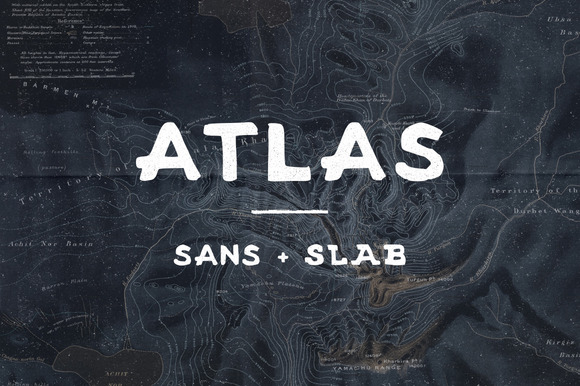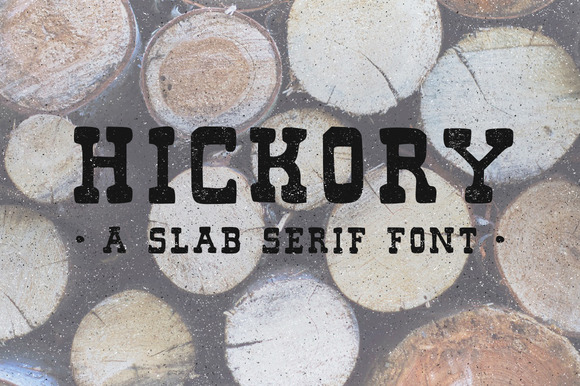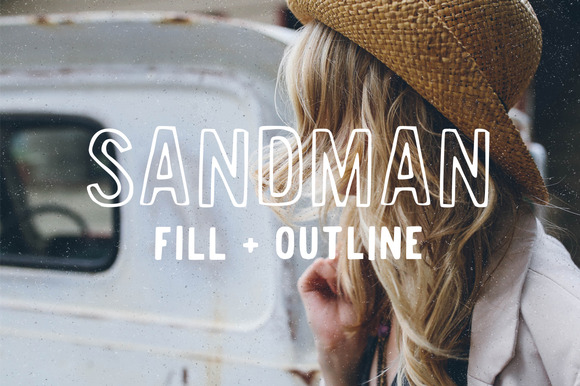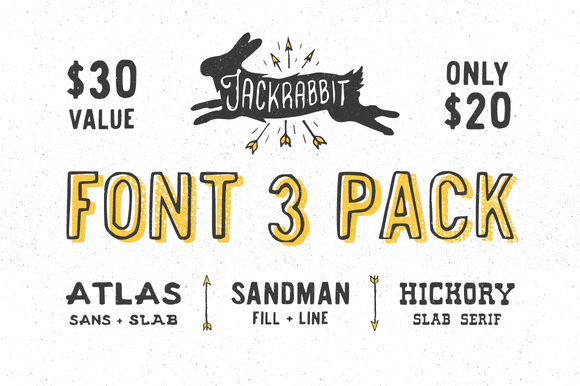
Jackrabbit Font Bundle
• Atlas is a handmade sans and serif font – inspired by both adventure and vintage travel maps.
Font includes numbers and minimal glyphs.
• Sandman is a handmade sans serif font. Two versions – Fill and Outline. Perfect for overlaying on photos…or really any project wanting a handcrafted feel. Inspired by, and created whilst listening to vintage tunes – such as “Mr. Sandman” by the Chordettes – hence the name. Font includes numbers and minimal glyphs.
• Hickory is a handcrafted slab serif font inspired by vintage forest service.
Includes numbers and minimal glyphs.